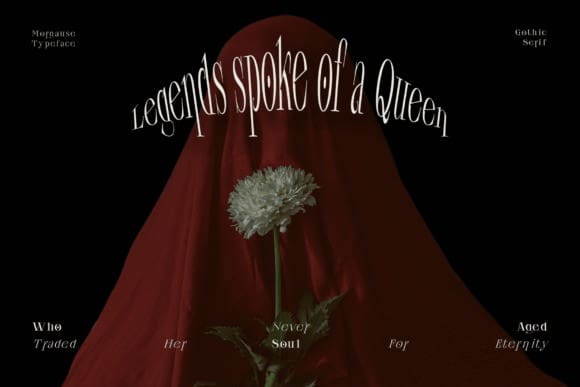
Morgause Font Family
Morgause Font Family is a gothic-inspired serif font that merges sharp, pointed serifs with a touch of elegance. Its design draws from vintage European gothic styles, offering a balance of mystique and sophistication. Morgause Font is available in a wide range of styles from light to bold, with italic options for each weight, making it versatile for both dramatic and refined design needs. Ideal for creating an air of dark, mystical energy while maintaining a classy aesthetic.